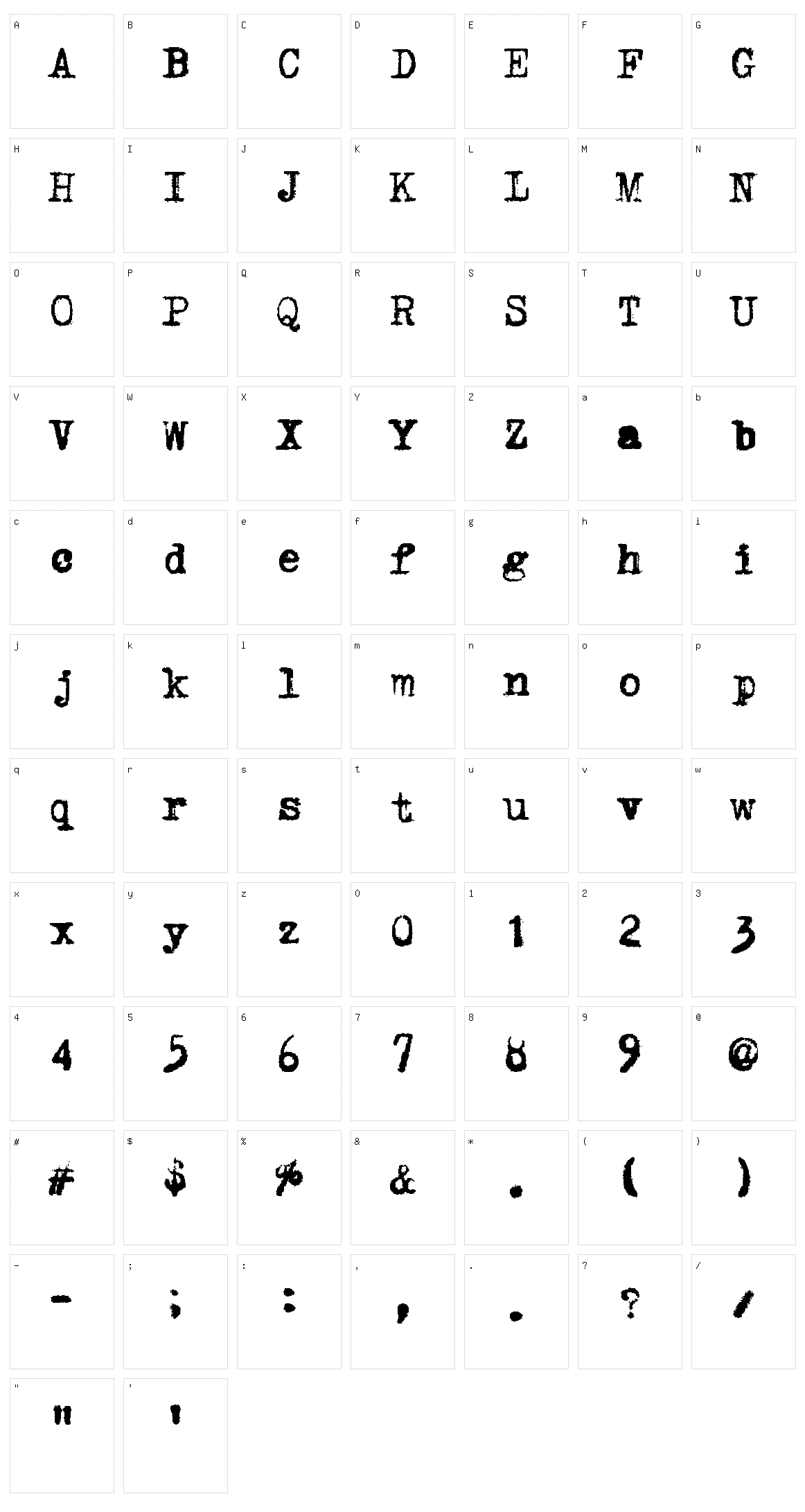
The free font Light Fingers is carefully designed by Xerographer Fonts, showcasing a thoughtful balance of creativity and usability and falls under the Typewriter font style. When you download the ZIP file, it contains only 25.64 KB of font files, making it lightweight and quick to download. Please review the license details below to understand permitted usage and distribution rights. If license information is not available, we recommend using this font for personal projects only or contacting the author directly for commercial usage permissions.